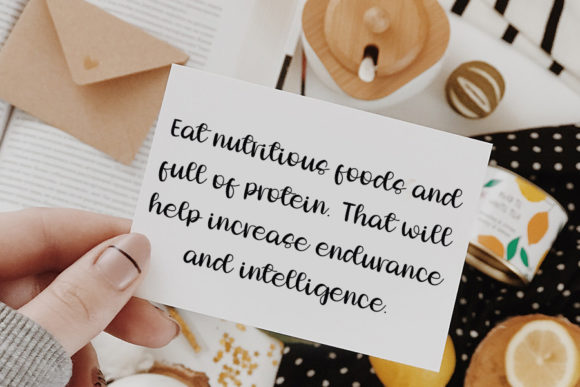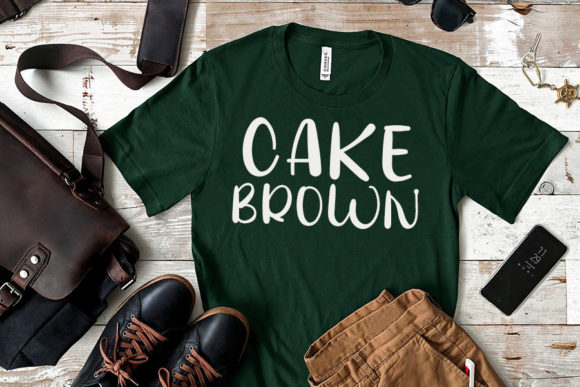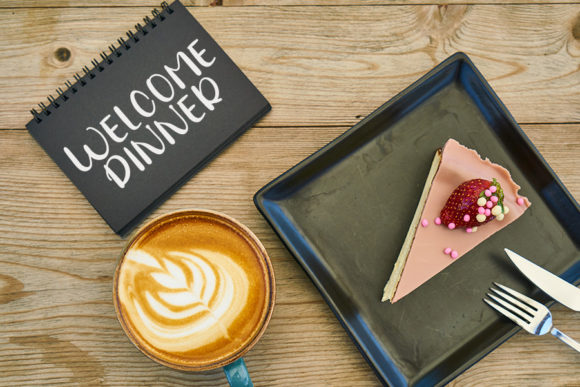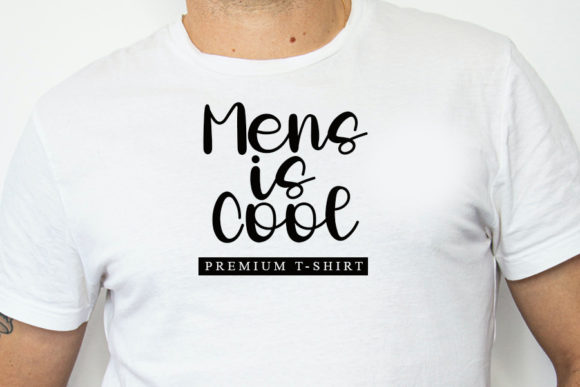
Sweet Chocolate Font
About Sweet Chocolate Font
Sweet Chocolate is a cute and charming handwritten font. Not too thin and not too thick, balanced and varied, this font was designed to enhance the beauty of your projects.